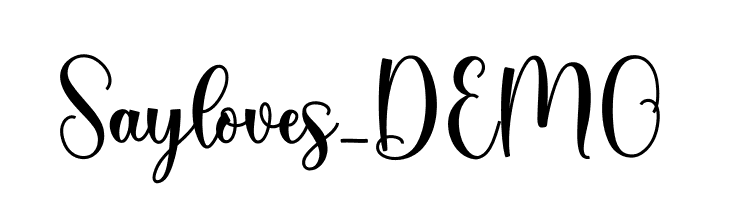
An elegant script font with fluid, cursive strokes and decorative flair.
An elegant script font with flowing, ornate cursive letters and intricate flourishes.
A cursive, handwritten font with elegant, flowing lines.